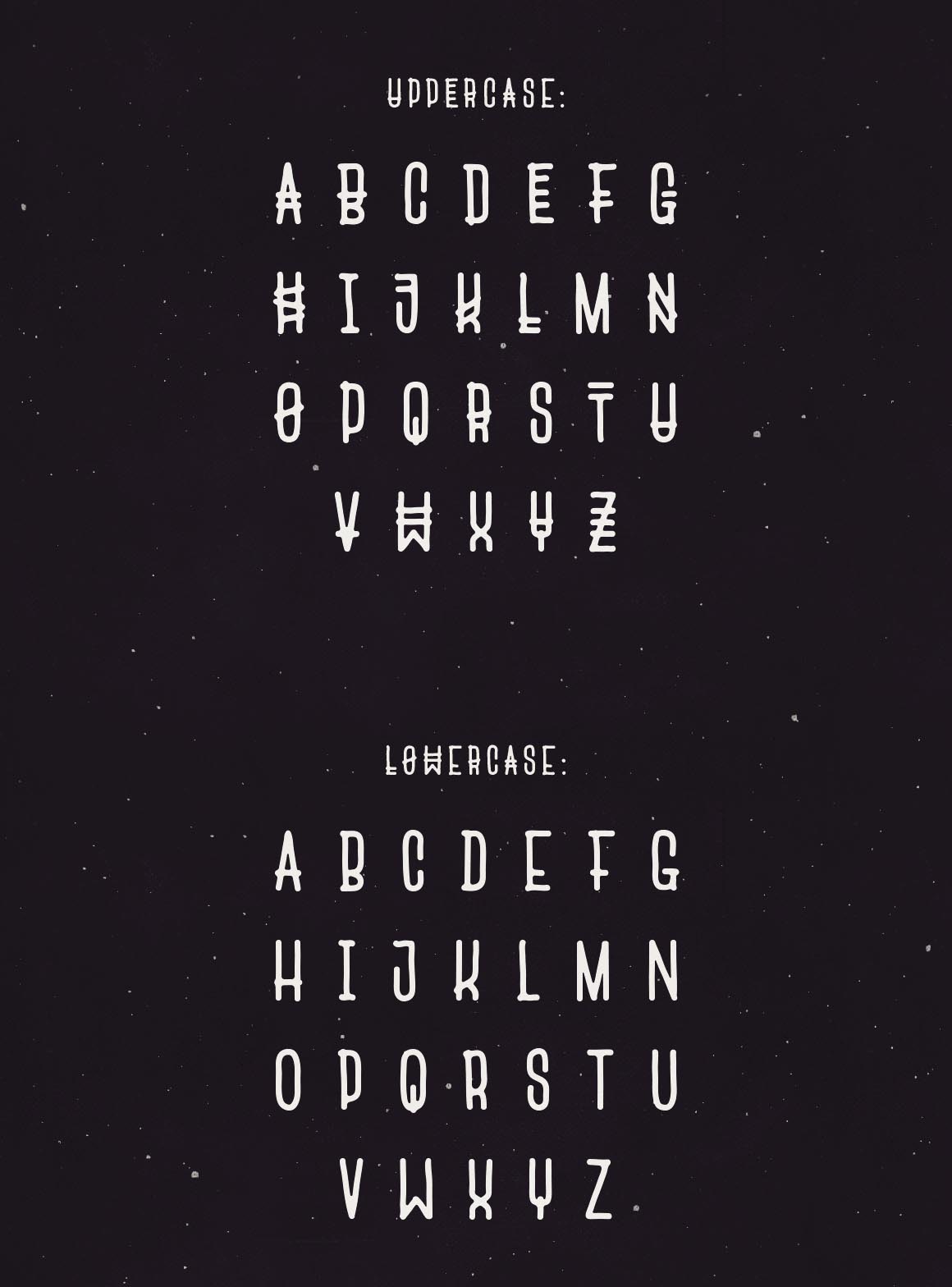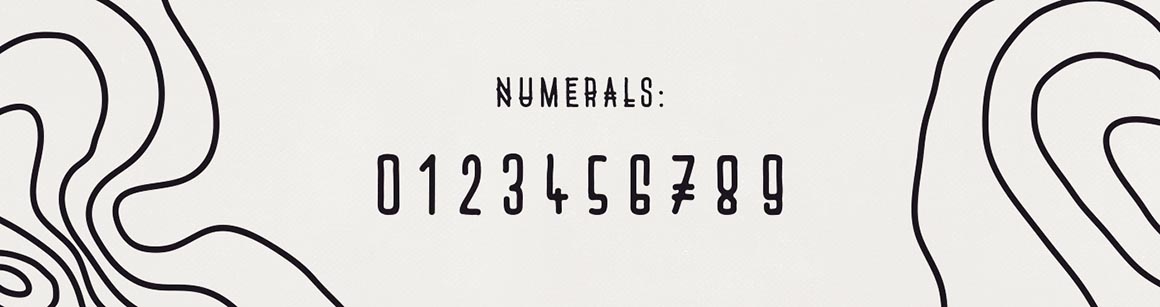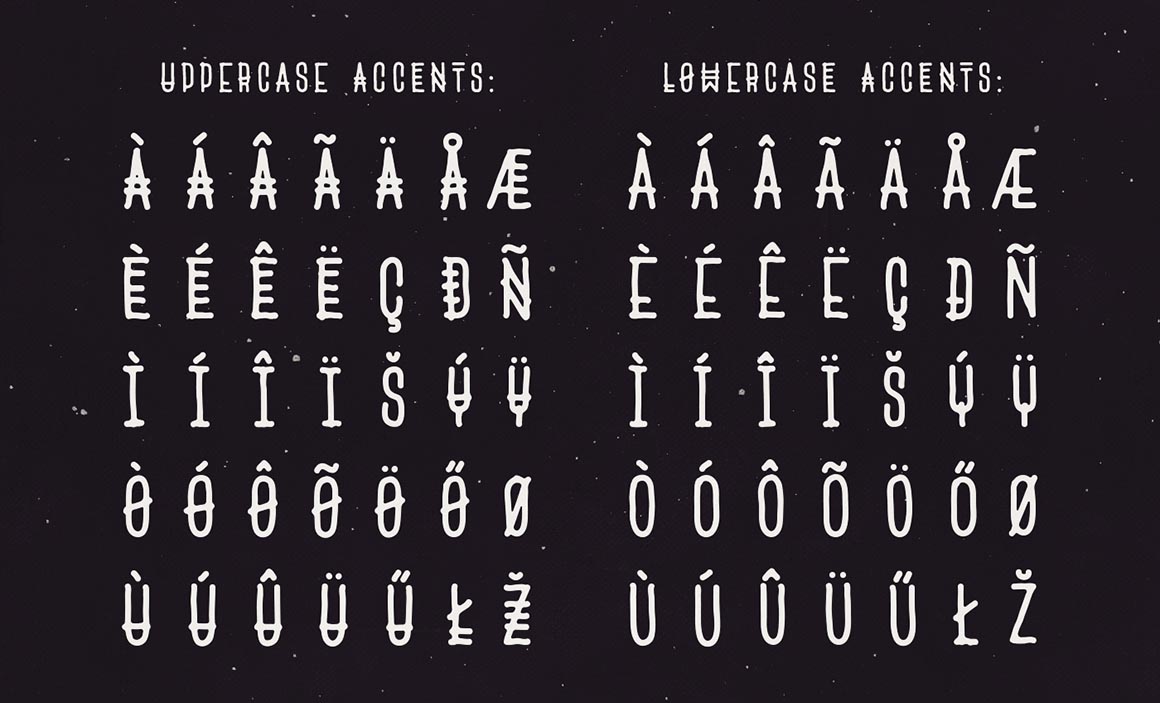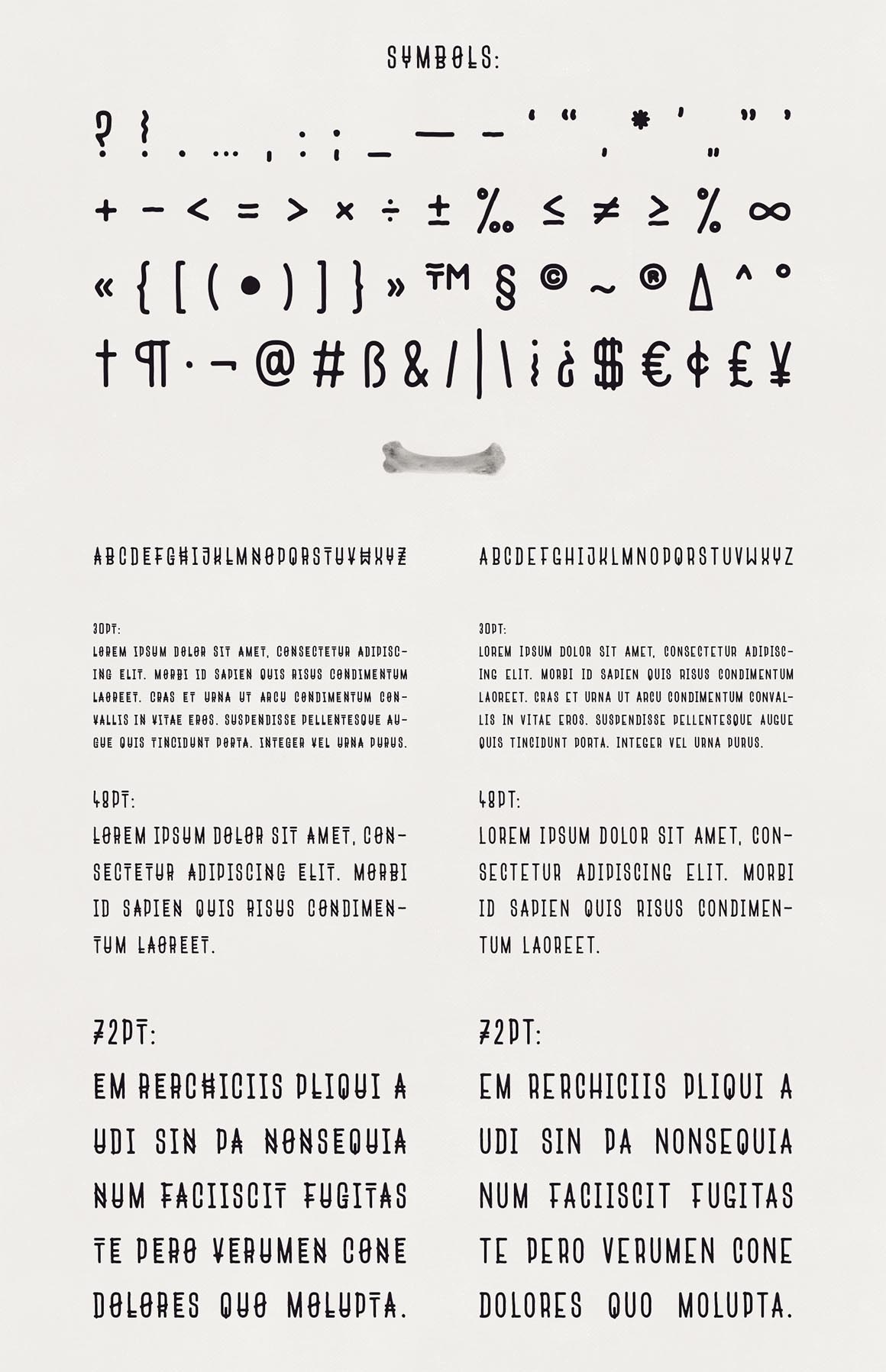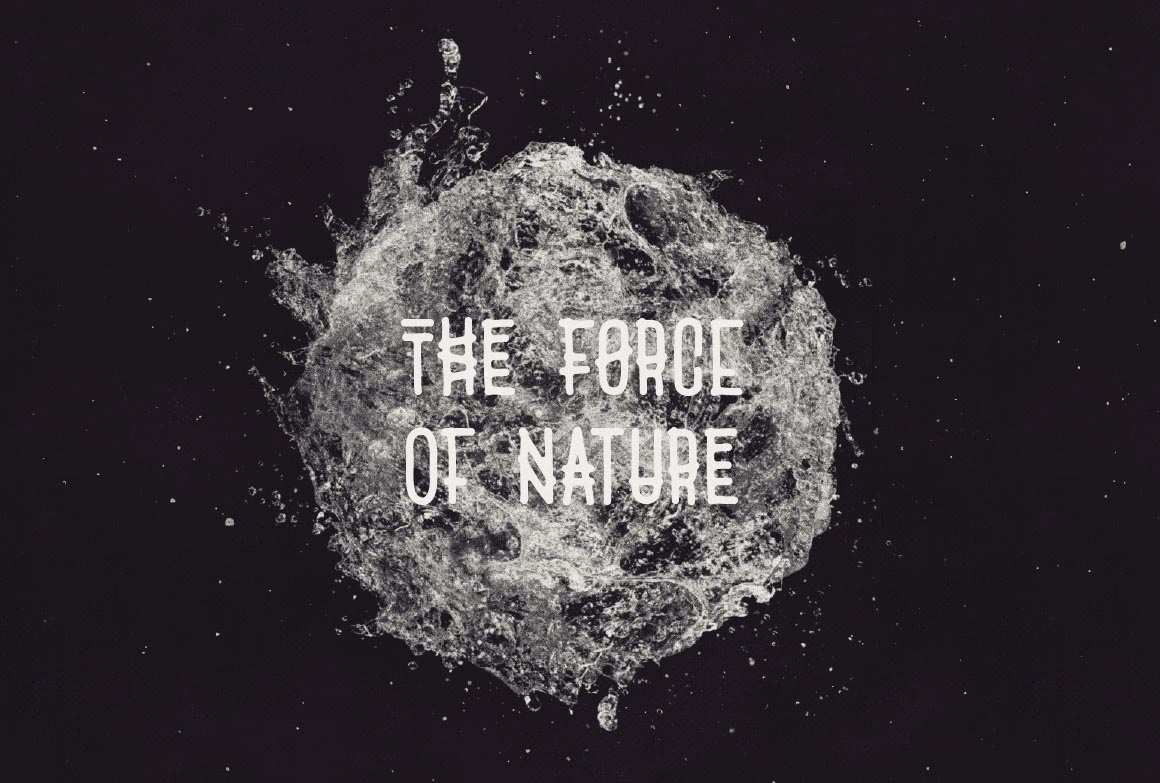
Nazare – Free Handdrawn Font
This cool handdrawn style font is from David Szebenyi. Download and enjoy 😉 Nazaré is a font inspired by the town of the same name in Portugal. It’s a condensed upper-case font with hand drawn lines, roundings and a bit of a tribal touch. The lowercase charac-ters are simpler forms of the uppercase ones, enabling to add variation to the text when the two are mixed, leading to a natural hand drawn feel. All the letters are uniquely drawn, so if you’re looking for more variations, you can make use of the accented characters too.